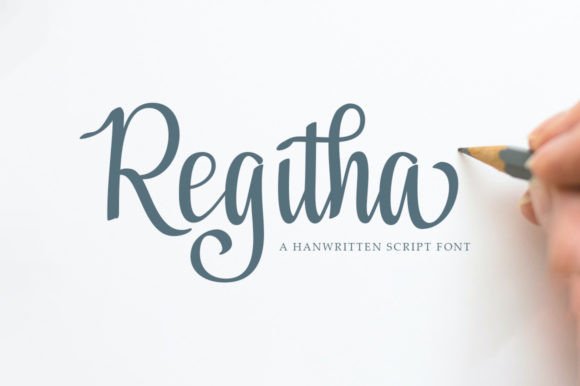
Indulge in the captivating charm of Regitha, a script font that will elevate your designs to new heights. This masterpiece from Black Studio exudes elegance and sophistication, leaving an unforgettable impression on your audience.
Regitha's flowing strokes and graceful curves evoke a sense of timeless beauty, making it perfect for projects that call for a touch of refinement. Its unique and distinct style will set your creations apart, capturing the attention of those who appreciate the finer things in life.
With Regitha, you'll have an entire symphony of creative possibilities at your fingertips. Its PUA encoding grants you effortless access to a myriad of glyphs and ligatures, allowing you to add intricate details and embellishments that will transform your designs into works of art. Whether you're designing invitations, branding materials, or simply expressing your creativity, Regitha will be your trusted companion, guiding you towards exceptional results.
Step into the realm of Regitha today and experience the magic of a font that will ignite your passion and inspire you to create designs that captivate and enchant. Fall head over heels for its timeless allure and let your imagination soar to new heights with Regitha, the font that will make your creative dreams a reality.